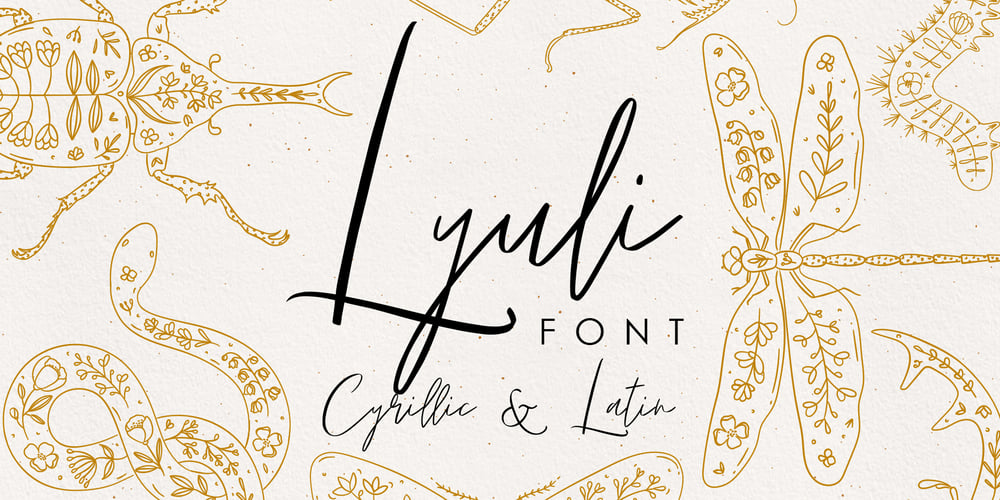
Lyuli Font Family was designed by Anna Kozlenko and published by Anna Kozlenko. Lyuli contains 1 styles and family package options. Lyuli Script is a handwritten font with a calligraphy flair, ideal for creating handwritten-style logos, wedding stationery, photographer watermarks logos, modern websites, and more.Create unique style for your business or personal use.